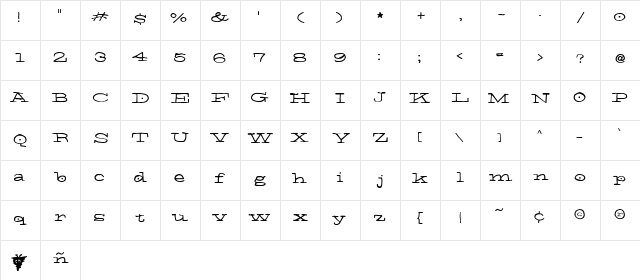
El Ni֯ Regular
Design Context for El Ni֯ Typeface
El Ni֯ takes a measured approach to typography — its balanced proportions and neutral character make it a reliable workhorse for both digital and print work.